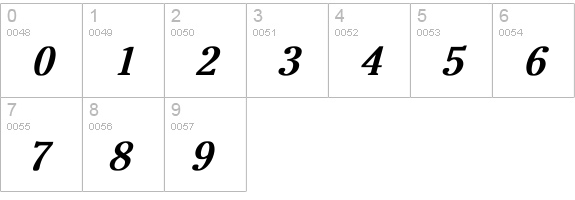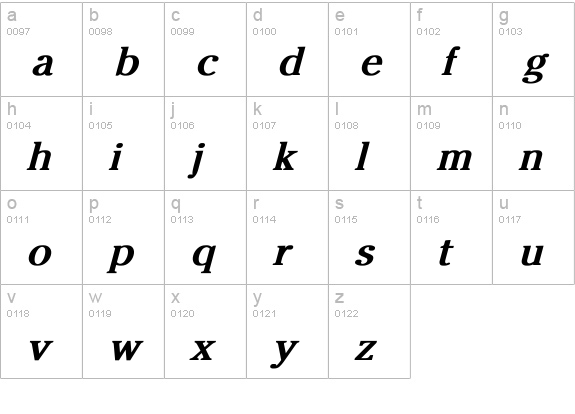
Chiltons Bold Italic Font Details
Chiltons Bold Italic is a strong, high-contrast, italic variant in the Chiltons typeface family \xE2\x80\x94 well suited to headlines, attention-grabbing titles, and strong calls-to-action.
Chiltons Bold Italic font is a stunning display typeface that exudes elegance and sophistication. With its bold yet graceful letterforms, this font is perfect for adding a touch of luxury to your design projects. Whether you're creating invitations, posters, or branding materials, Chiltons Bold Italic will make a bold statement. The best part? Chiltons Bold Italic is available for free download at FontsMarket.com. This means you can easily access this premium font without any cost, making it a valuable addition to your font collection. Embrace the beauty and versatility of Chiltons Bold Italic in your next design project and watch as it instantly elevates your work to the next level.